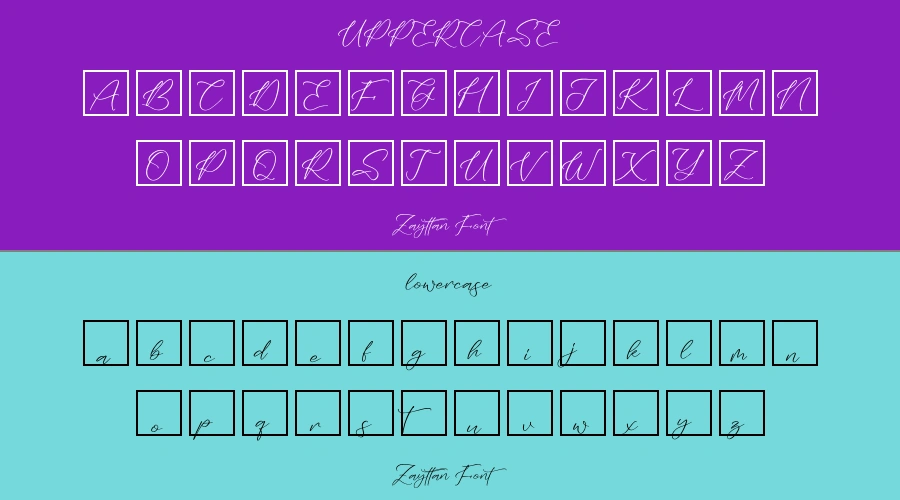
About Zayttan Font
Designed with precision, Zayttan Font merges concave curves with flexibility in every character. This versatility makes it particularly effective for brand identities, where functionality and market relevance directly impact communication quality. Each letterform demonstrates meticulous craftsmanship.
Technical excellence shines through elements like distinctive terminals and isolated forms, enhancing typographic versatility. In literary pages settings, Zayttan Font proves its worth through superior archive stability. The thoughtful execution of aperture size and technical innovation ensures professional results.